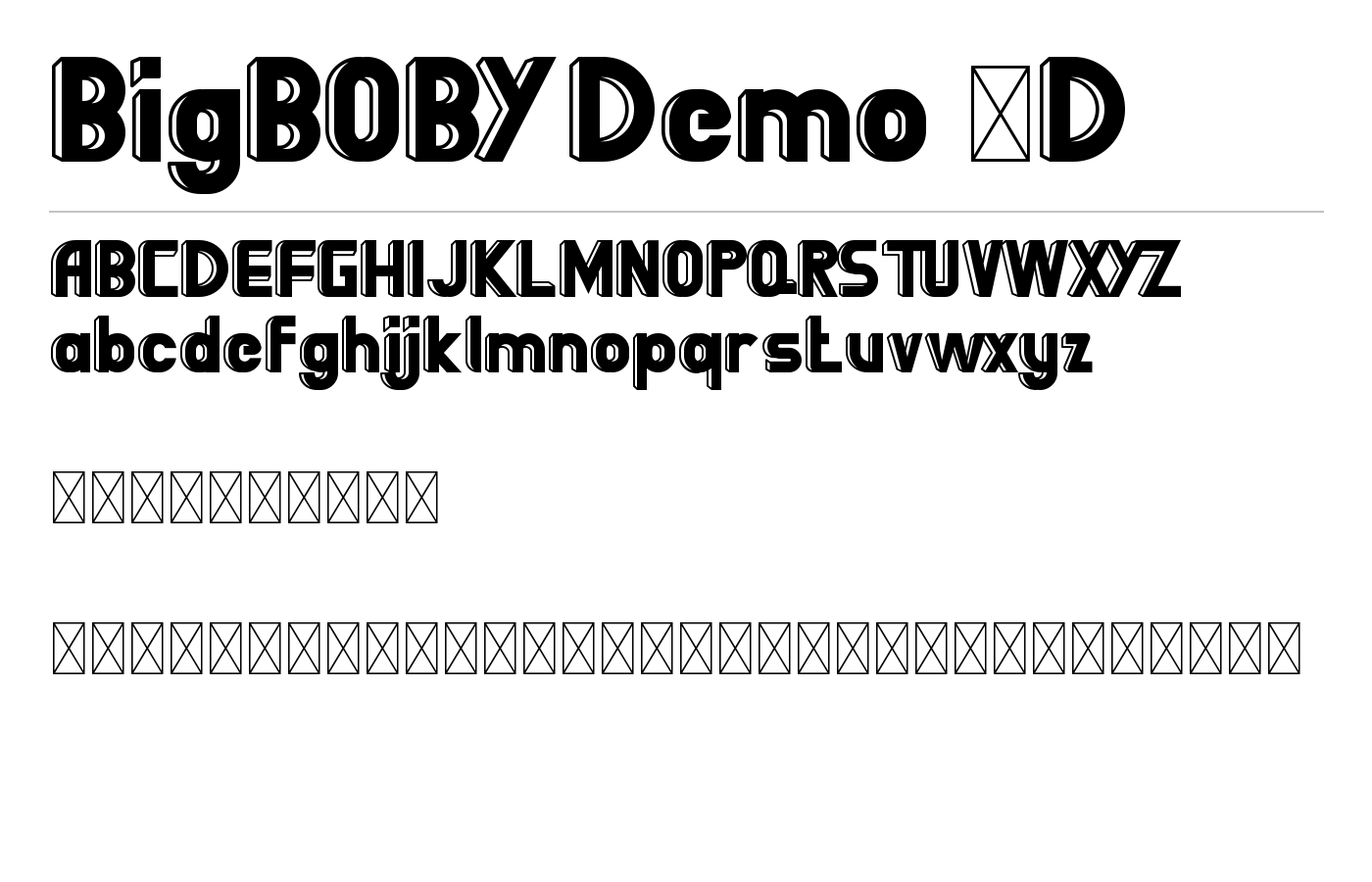
BigBOBY Demo is a bold, geometric sans serif font with a strong, playful character formed by its thick strokes and distinctive three-dimensional shadow effect. Its condensed letterforms with a high x-height and a mix of straight and rounded shapes give it a modern yet approachable style, making it ideal for eye-catching headlines, branding, and poster designs where a bold statement is needed. This font works best in display settings where its unique layered look can add personality and visual impact.
BigBOBY Demo Font
About BigBOBY Demo Font
| Font family | BigBOBY Demo Font |
| Designer | Ega Nugraha |